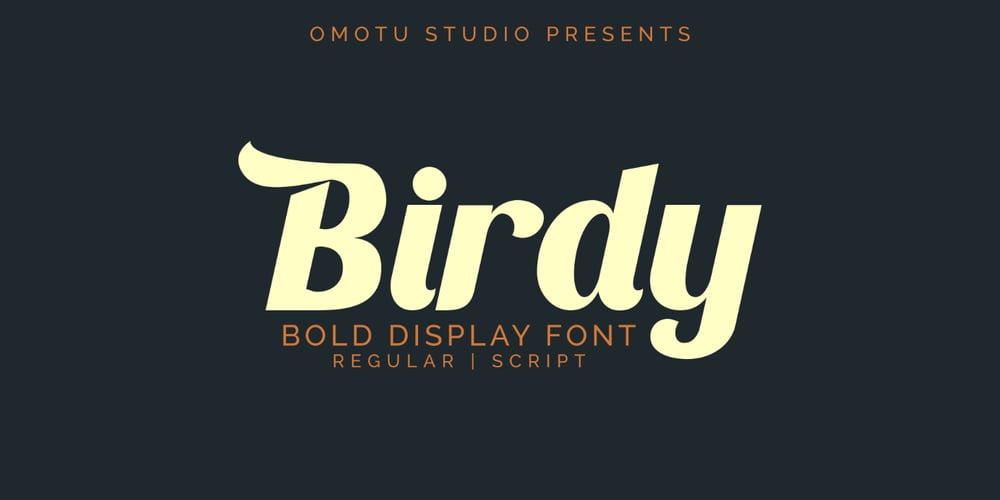
Birdy Font Family was designed by Ibnu Utomo and published by Omotu. Birdy contains 2 styles and family package options. Birdy is bold display font. Comes with 2 styles, regular and script. Great for heading, logotype, branding, packaging design, poster design, website/display, editorial, headline, advertising, and more.Whats Include? Opentype support Multilingual support PUA encoded Features: Uppercase, lowercase, numerals, punctuations, alternates, ligatures, and swashes. Thanks for looking, and I hope you enjoy it! Please don’t hesitate to drop me a message if you have any issues or queries.